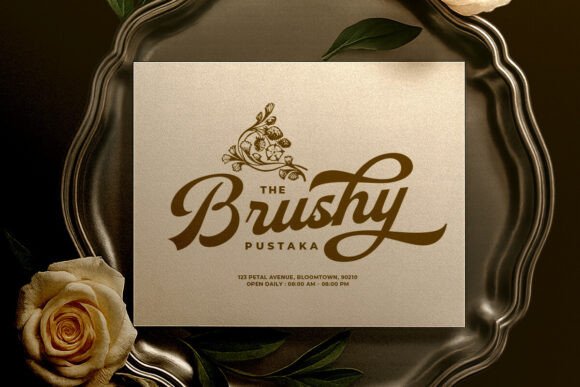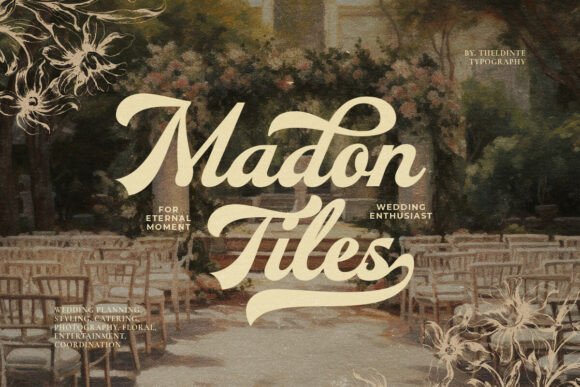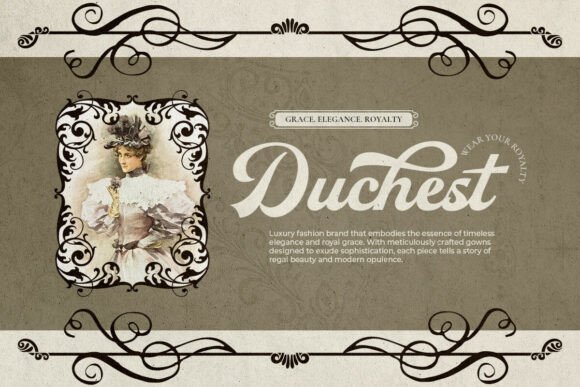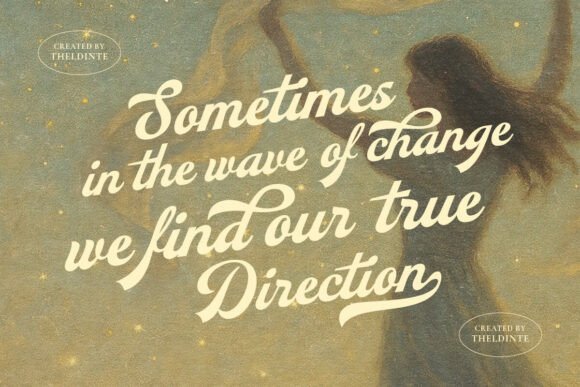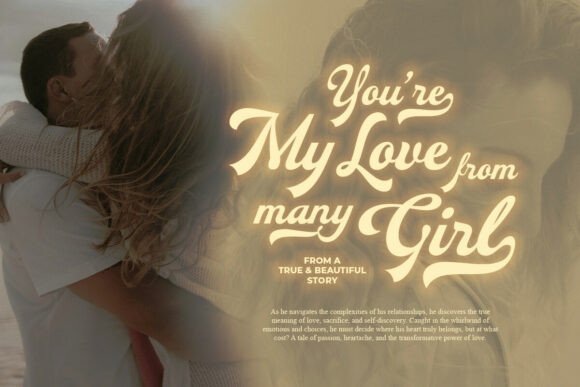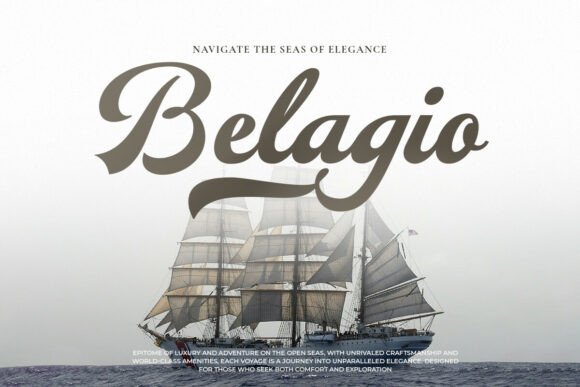
Introducing Auskey Font: Elevate Your Designs with a Touch of Retro Elegance
In the world of typography, fonts play a crucial role in conveying the tone and personality of a design. For designers and crafters looking to add a touch of sophistication and charm to their projects, Auskey Font is an excellent choice. This bold and clean script font boasts a unique and stylish style that brings a retro and elegant charm to any design.
What Makes Auskey Font Stand Out?
Auskey Font is not just another script font; it’s a versatile and elegant typeface that can elevate a wide range of design projects. Here are some of its standout features:
- Unique and Stylish Style: Auskey Font features a distinctive and stylish design that sets it apart from other fonts. Its bold and clean lines give it a retro charm that’s perfect for designs that require a touch of elegance.
- Perfect for Various Projects: Whether you’re working on logotypes, quotes, branding, or even wedding invitations, Auskey Font is an excellent choice. Its versatility makes it suitable for a wide range of design applications.
- Character and Personality: This font adds a touch of character and personality to any project. Its elegant design ensures that your text stands out and grabs the attention of your audience.
- Variety of Alternates: Auskey Font includes a range of alternates that make it easy to create eye-catching compositions. With these alternates, you can experiment with different styles and find the perfect fit for your design.
- Multi-Language Support: This font supports multiple languages, making it a versatile and practical choice for designers and crafters working on international projects.
Why Choose Auskey Font for Your Designs?
For designers and crafters looking to create stunning and effective designs, Auskey Font is an excellent choice. Here are some reasons why:
- Elegance and Sophistication: Auskey Font brings a touch of elegance and sophistication to any design. Its retro charm and stylish design ensure that your text stands out and looks premium.
- Easy to Read and Understand: The clean lines and bold design of Auskey Font make it easy to read and understand. This is particularly important for designs that require clear communication, such as branding and logotypes.
- Customization Options: With a range of alternates and multi-language support, Auskey Font offers plenty of opportunities for customization. This allows you to tailor your design to your specific needs and preferences.
- Time-Saving: The versatility and elegance of Auskey Font make it a time-saving solution for designers and crafters. You can use it for a wide range of projects, reducing the need to search for and download multiple fonts.
How to Use Auskey Font in Your Designs?
Using Auskey Font in your designs is straightforward and easy. Here are some tips to get you started:
- Logotypes and Branding: Use Auskey Font to create stunning logotypes and branding materials. Its bold and clean design ensures that your text stands out and looks premium.
- Wedding Invitations and Stationery: Add a touch of elegance and sophistication to your wedding invitations and stationery with Auskey Font. Its retro charm and stylish design make it perfect for formal events.
- Quotes and Typography: Use Auskey Font to create eye-catching quotes and typography. Its clean lines and bold design make it easy to read and understand.
- Experiment with Alternates: Don’t be afraid to experiment with the alternates included with Auskey Font. This allows you to find the perfect fit for your design and create unique and eye-catching compositions.
| Author | baletype |
Auskey Font is a versatile and elegant typeface that’s perfect for designers and crafters looking to add a touch of retro charm and sophistication to their designs. With its bold and clean design, range of alternates, and multi-language support, this font is suitable for a wide range of design applications. Whether you’re working on logotypes, quotes, branding, or wedding invitations, Auskey Font is an excellent choice. So why wait? Download Auskey Font today and elevate your designs to the next level!